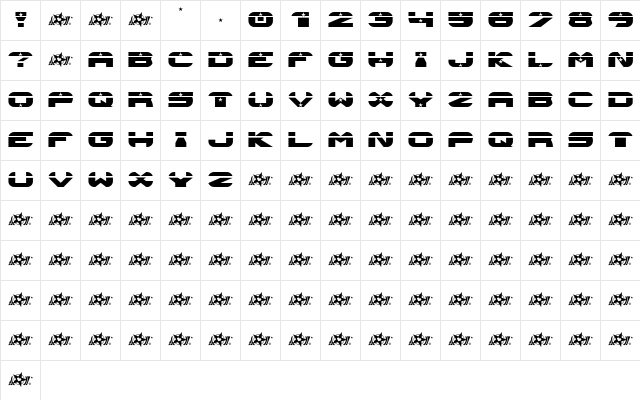
Style: ASTRONEO
Foundry: Astroneo Inc.
Designer: Cheikhna Diouf
Design Context for ASTRONEO
ASTRONEO is a composed and adaptable typeface that performs quietly and consistently across a wide range of design contexts.